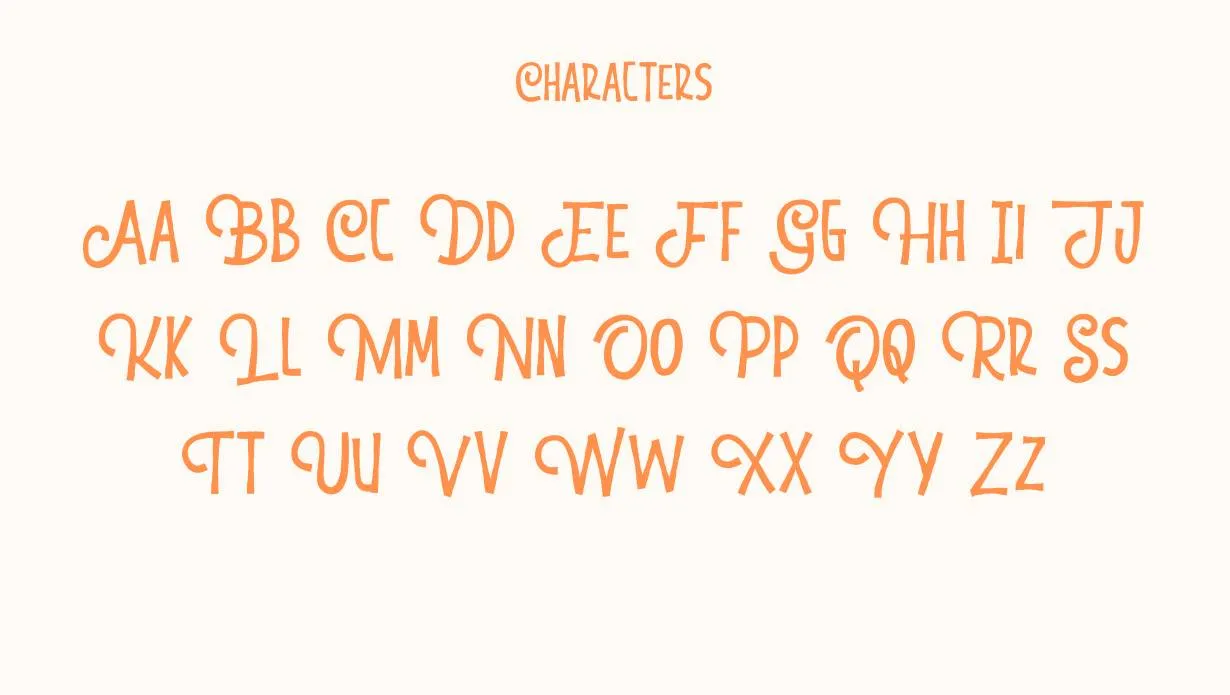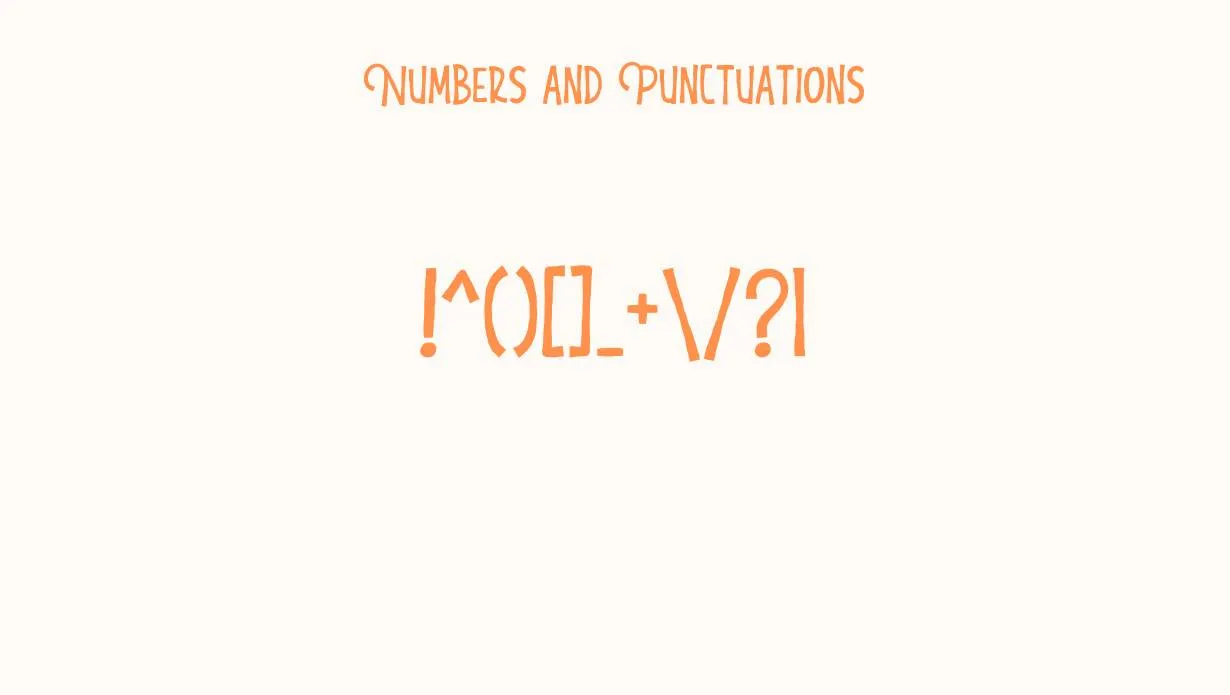
Yowes Font Free Download
Yowes font is a member of the fancy typeface family This font supports various languages Cyclic, Latin, and Greek. The Yowes font is suitable for various projects like branding, logo designing, product packaging, and Shop names.